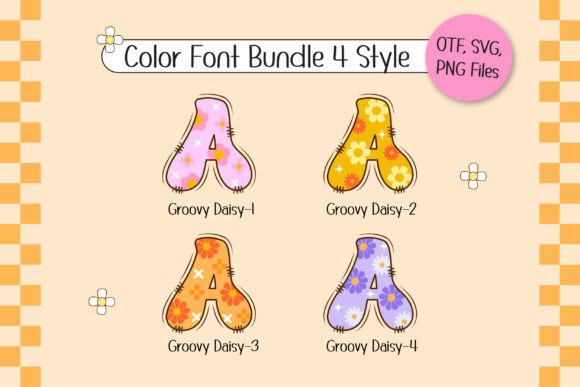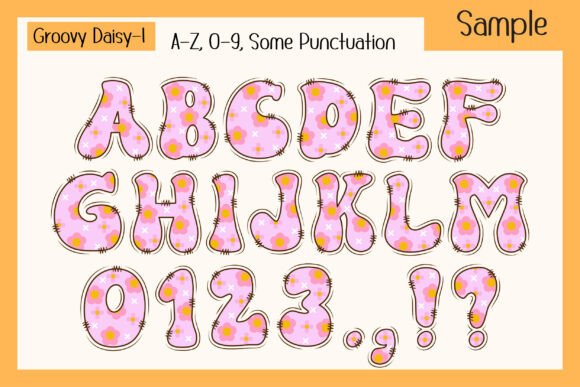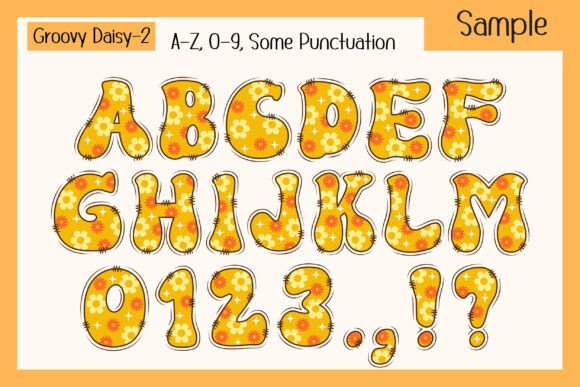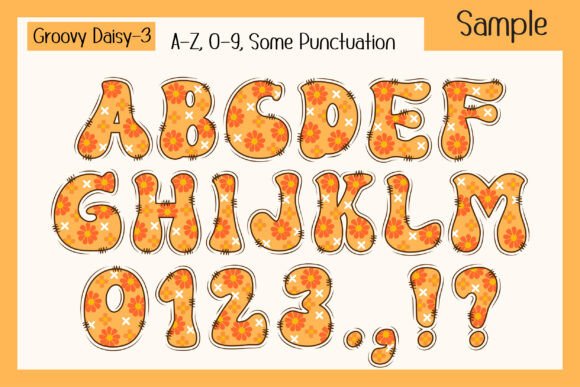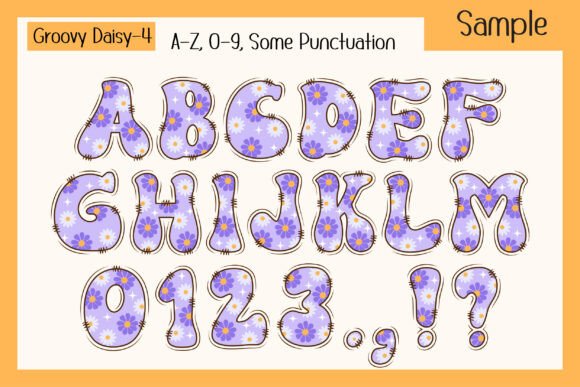
Introduction to Groovy Daisy Font
Introducing “Groovy Daisy” a vibrant spring season font that celebrates the charm of daisies with a burst of brightness and a retro groovy twist.
This fun 4 Color Font uses cheerful daisy motifs to capture the essence of spring and the festive spirit of a flower festival, while its playful design is enhanced by 20 matching doodle cliparts Perfect for kid-friendly projects and fun, cute designs, “Groovy Daisy” is ideal for spring posters, day quotes, T-shirts, custom names, DIY craft projects, and more—infusing every creation with the lively energy of the season.
Key Features of Groovy Daisy Font